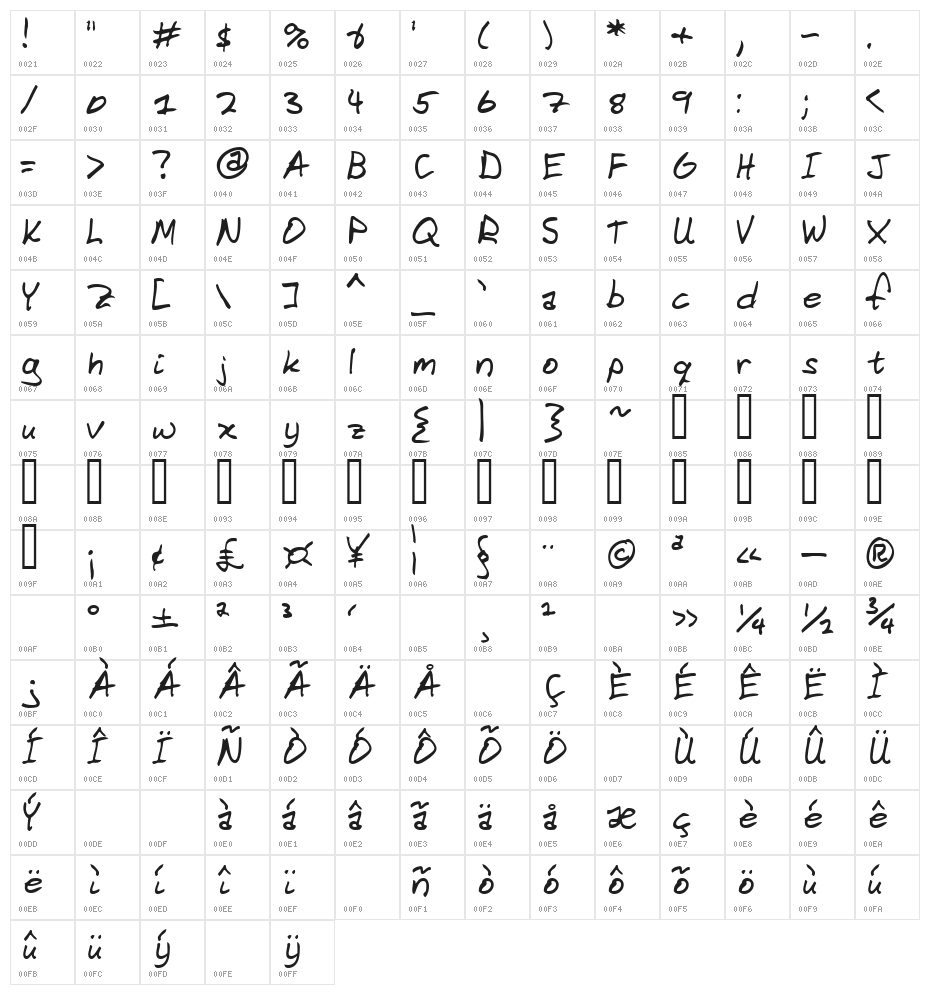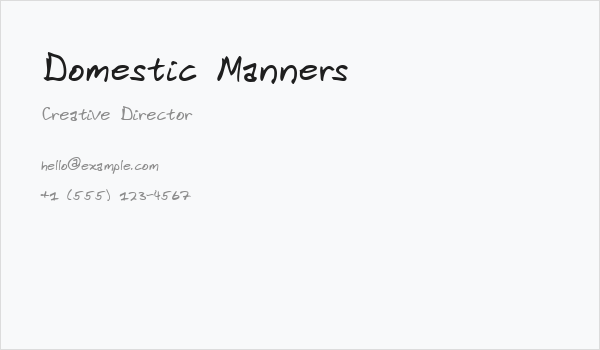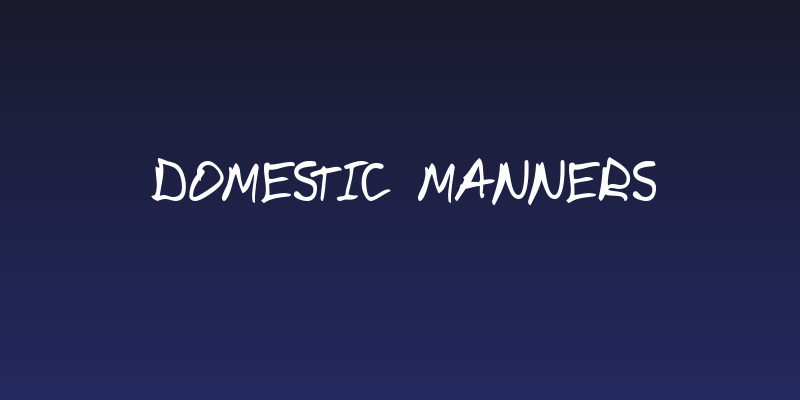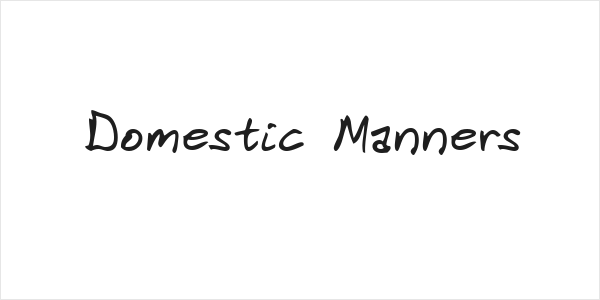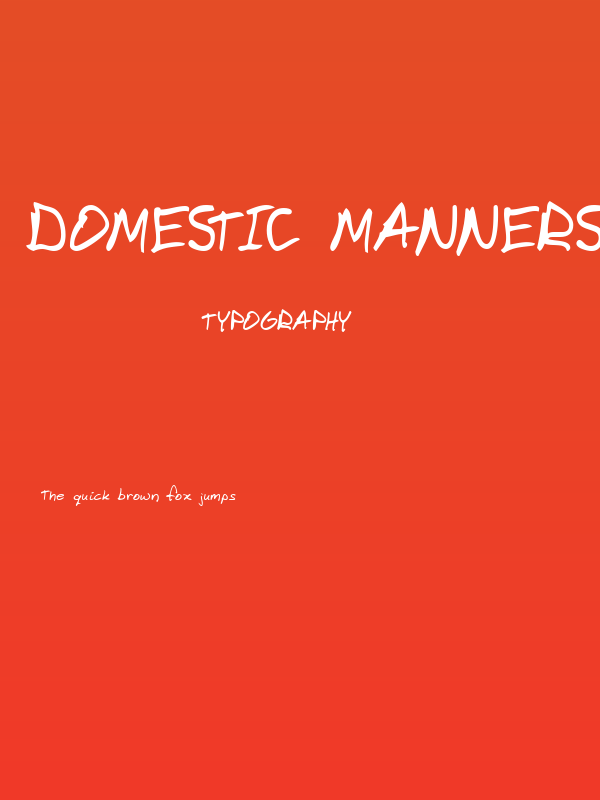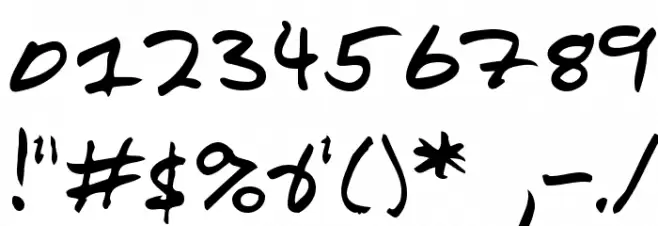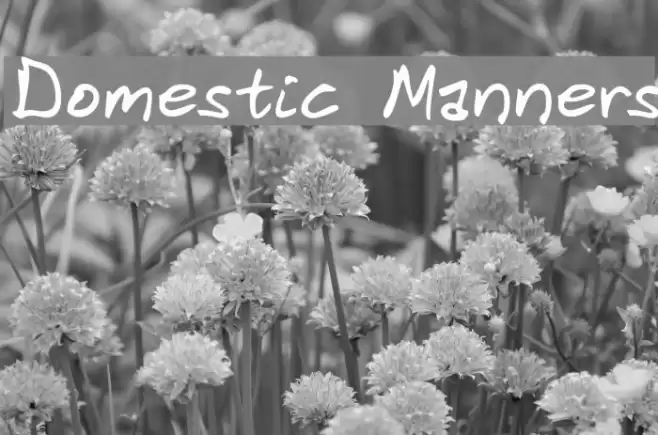
Domestic Manners Font
Domestic Manners Description
This font exhibits a playful and casual handwritten style, characterized by its fluid and dynamic strokes. The uppercase letters are bold and slightly slanted, giving a sense of movement and energy. The lowercase letters maintain a consistent flow, with some characters featuring unique loops and curves that add to the font's charm. Numbers are clear and easy to read, while special characters retain the same lively aesthetic. The overall appearance is informal yet legible, making it suitable for projects that require a personal touch.
| Overall Style | Casual, Playful |
| Use Case | Logos, Invitations, Creative projects |
| Proposed Projects | Ideal for greeting cards, personal invitations, children's books, and creative branding projects. |